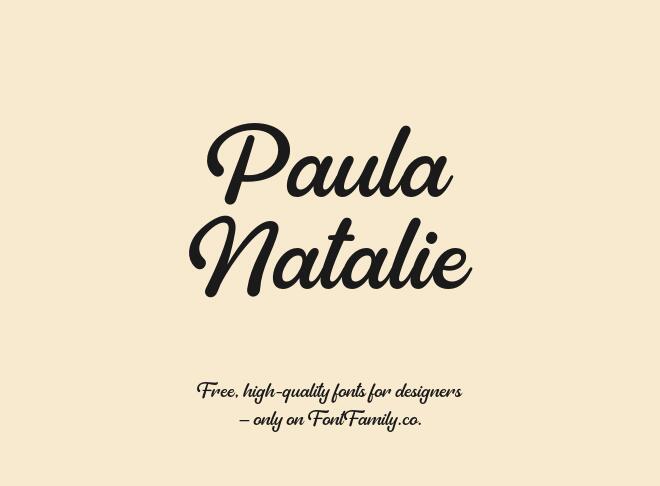
Paula Natalie Font
Paula Natalie Font is an elegant, modern, and handwritten typeface, designed by Creative Type Studio. This font possesses an organic feel with its fluid and graceful letterforms, making it perfect for wedding invitations, personal branding, fashion magazines, and lifestyle blogs. It is reminiscent of classic script fonts but with a more contemporary edge. Its unique style sets it apart from other fonts, ensuring your designs will be distinctive and memorable. Paula Natalie Font is easy to read, making it a versatile choice for both print and digital designs. The font's elegance and modernity make it an excellent choice for designers seeking to add a touch of sophistication to their projects.